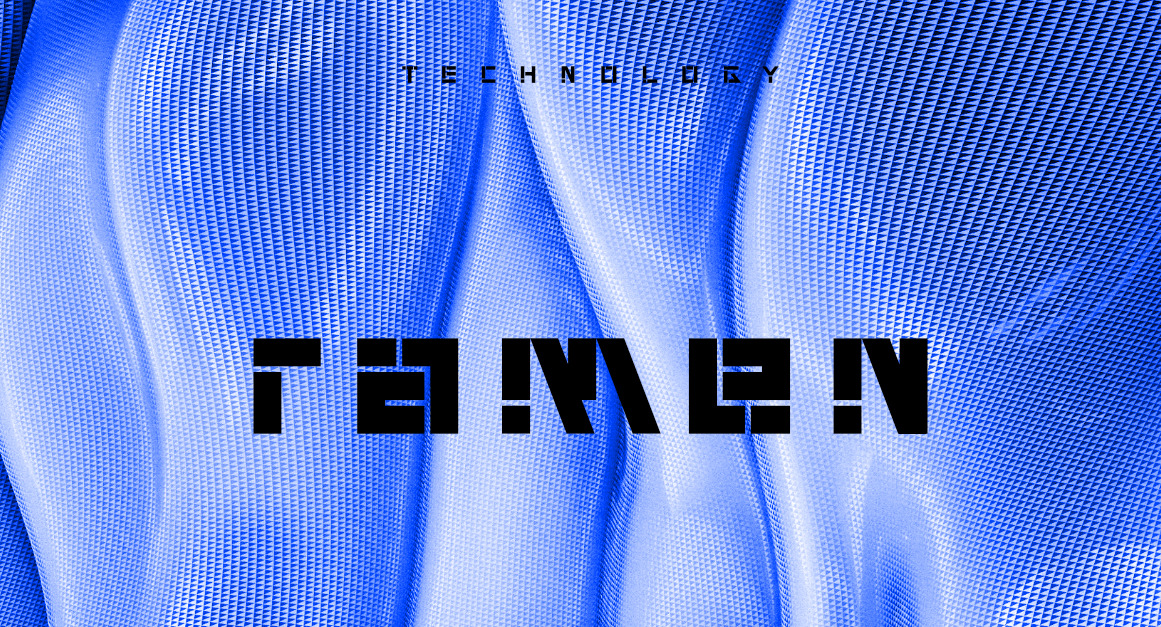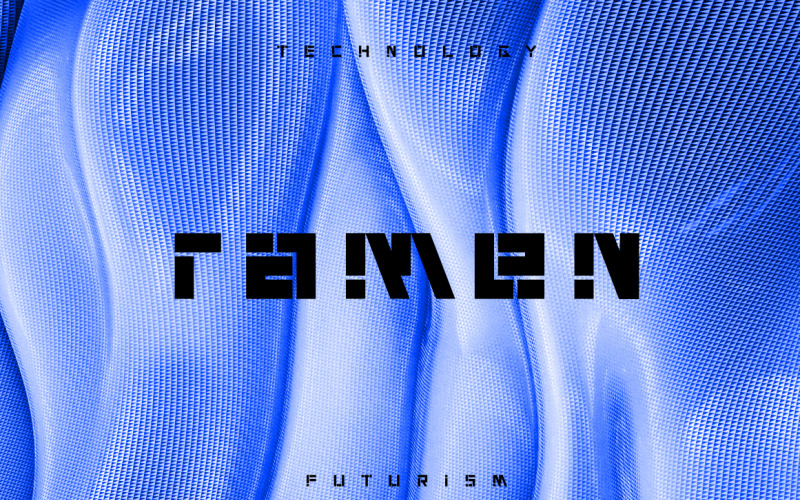
Overya techno futurism font
a font that transcends the ordinary and propels your message into the realm of the extraordinary. Our techno-inspired typeface is a symphony of sleek lines, sharp angles, and dynamic forms, meticulously crafted to evoke a sense of modernity and innovation. Each character pulsates with energy, creating a rhythm that resonates with the digital heartbeat of the contemporary world.